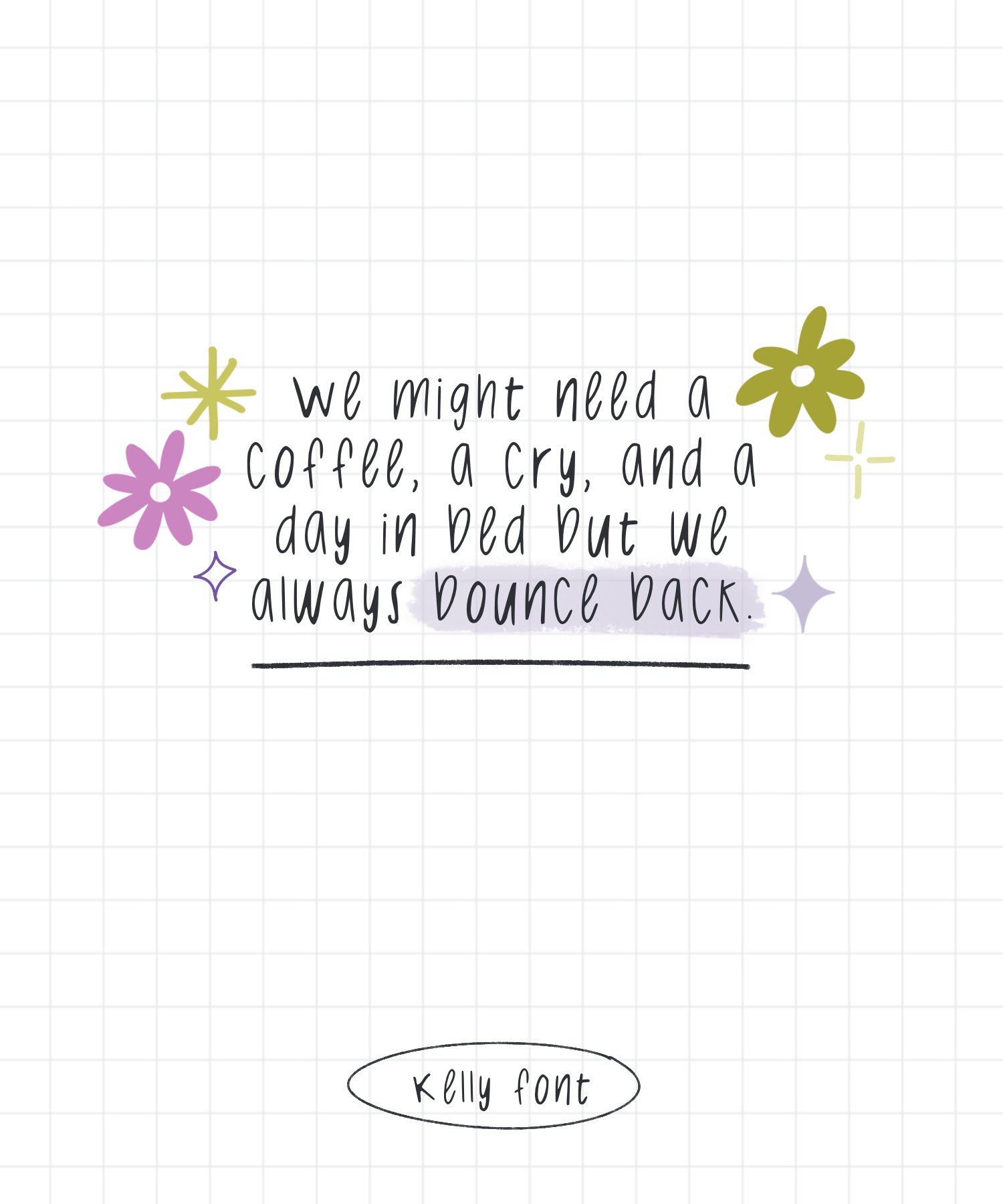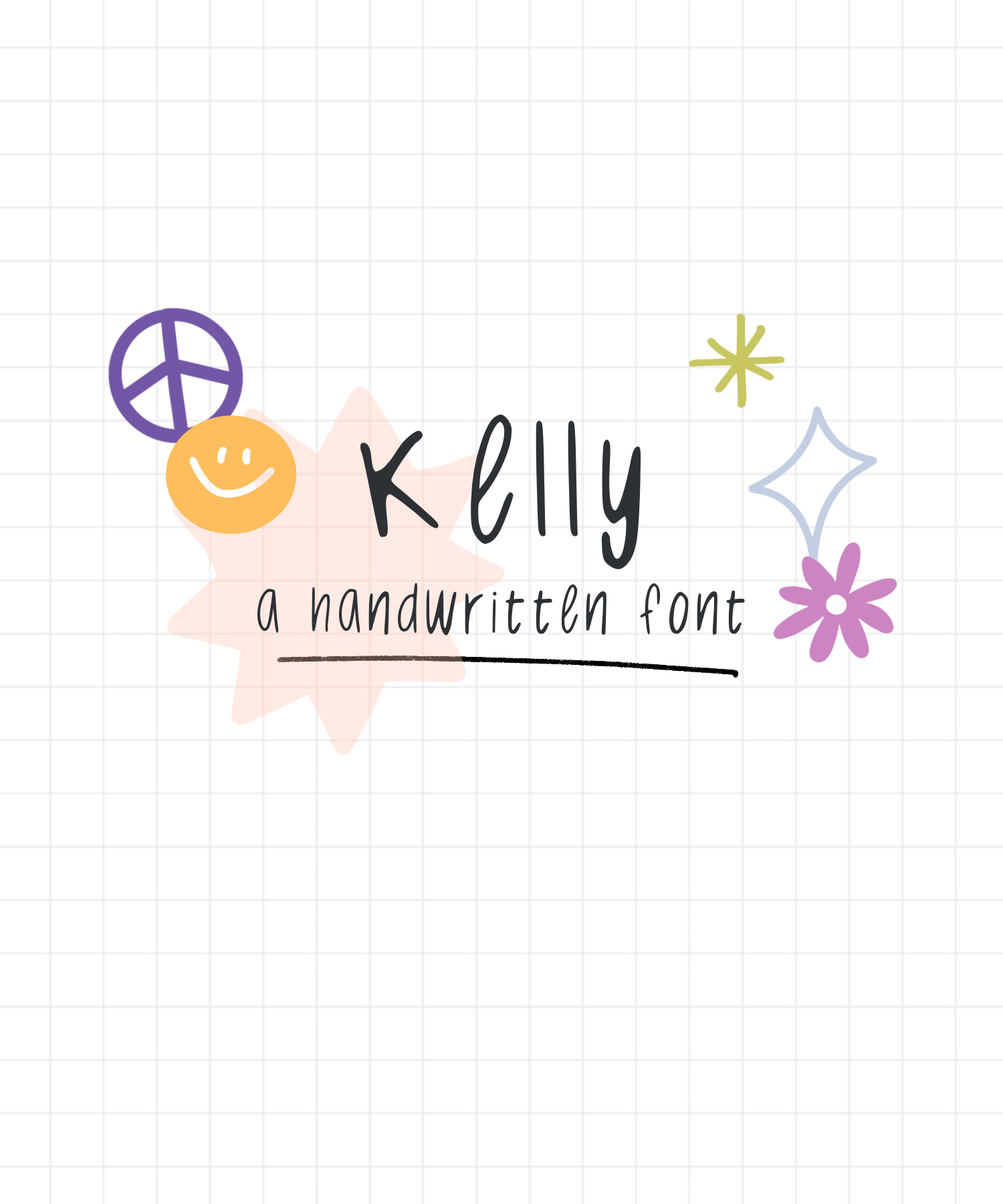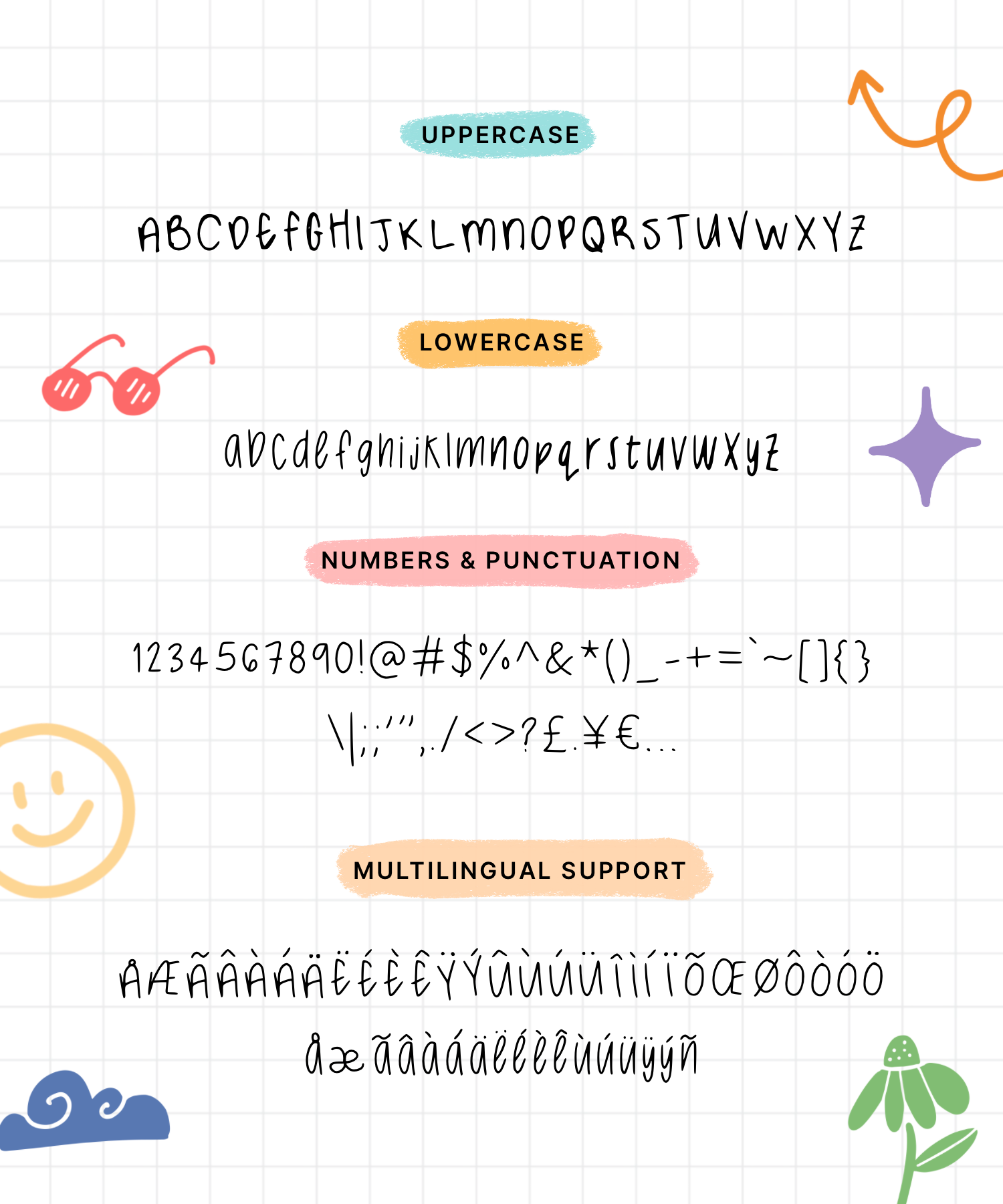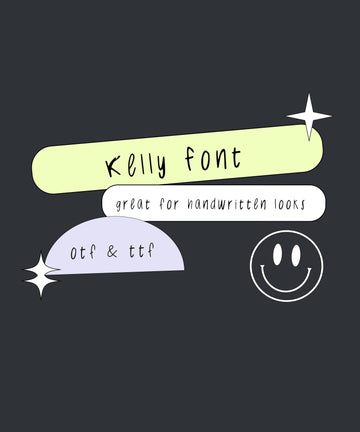
Kelly Font
This font is adorably handwritten and perfect for note-taking or headings. Great for adding to your Cricut projects or using inside your interactive digital planners.